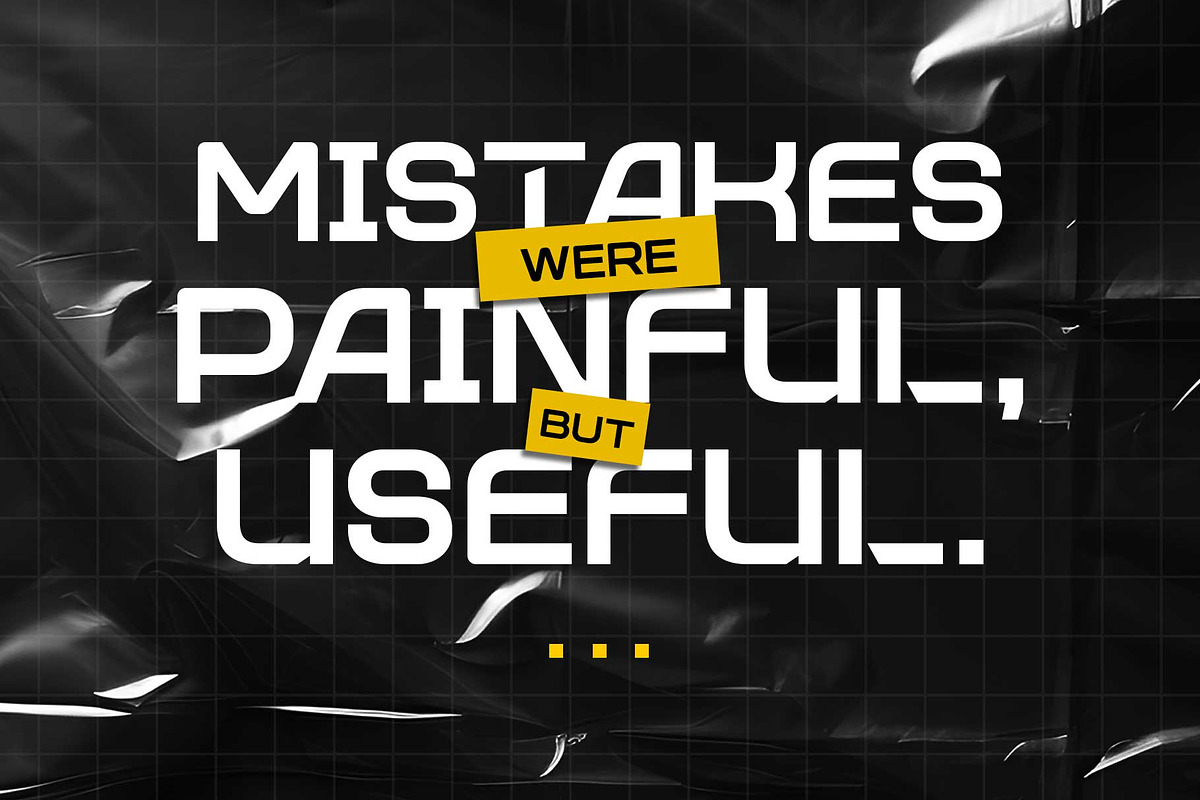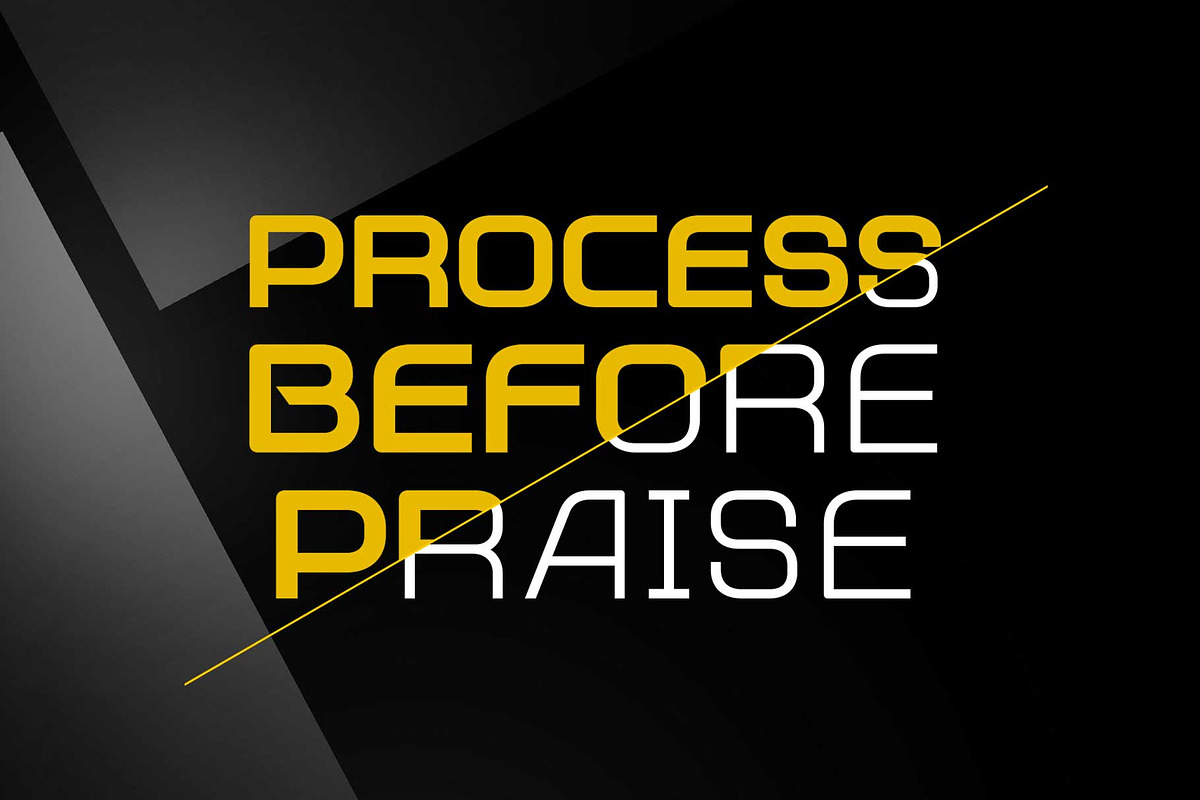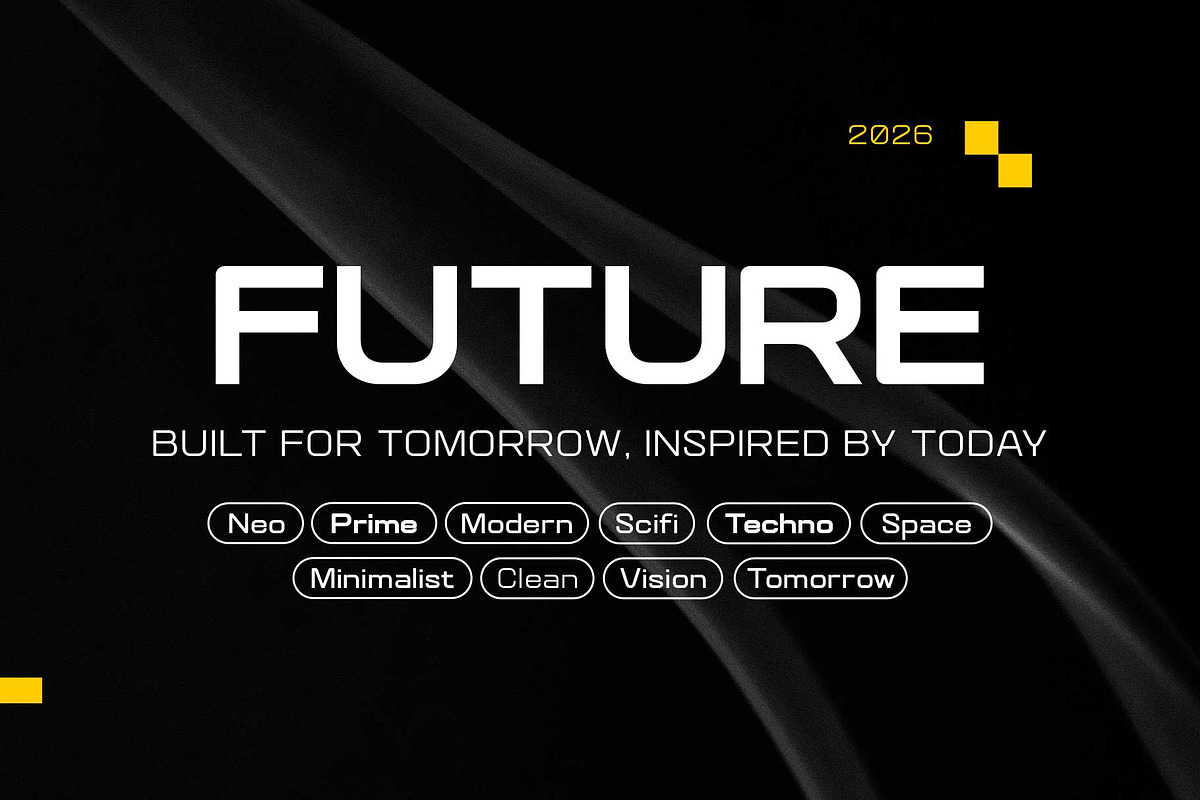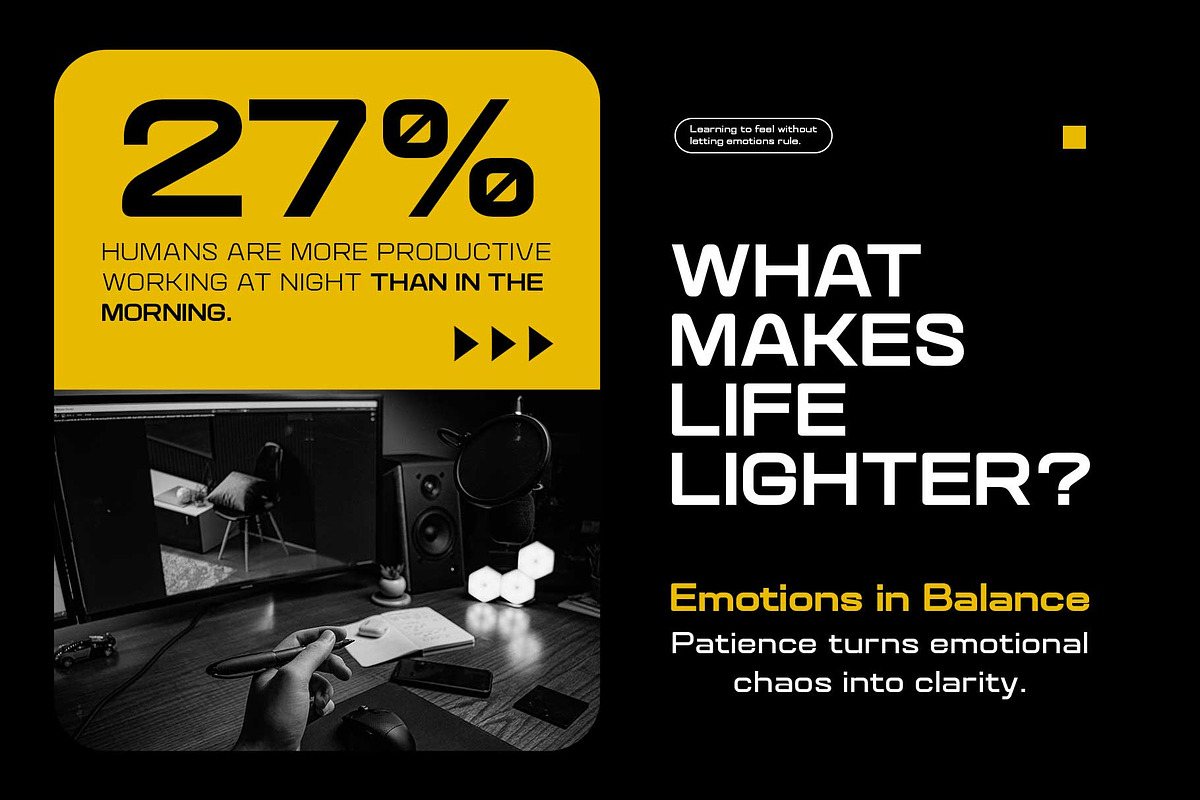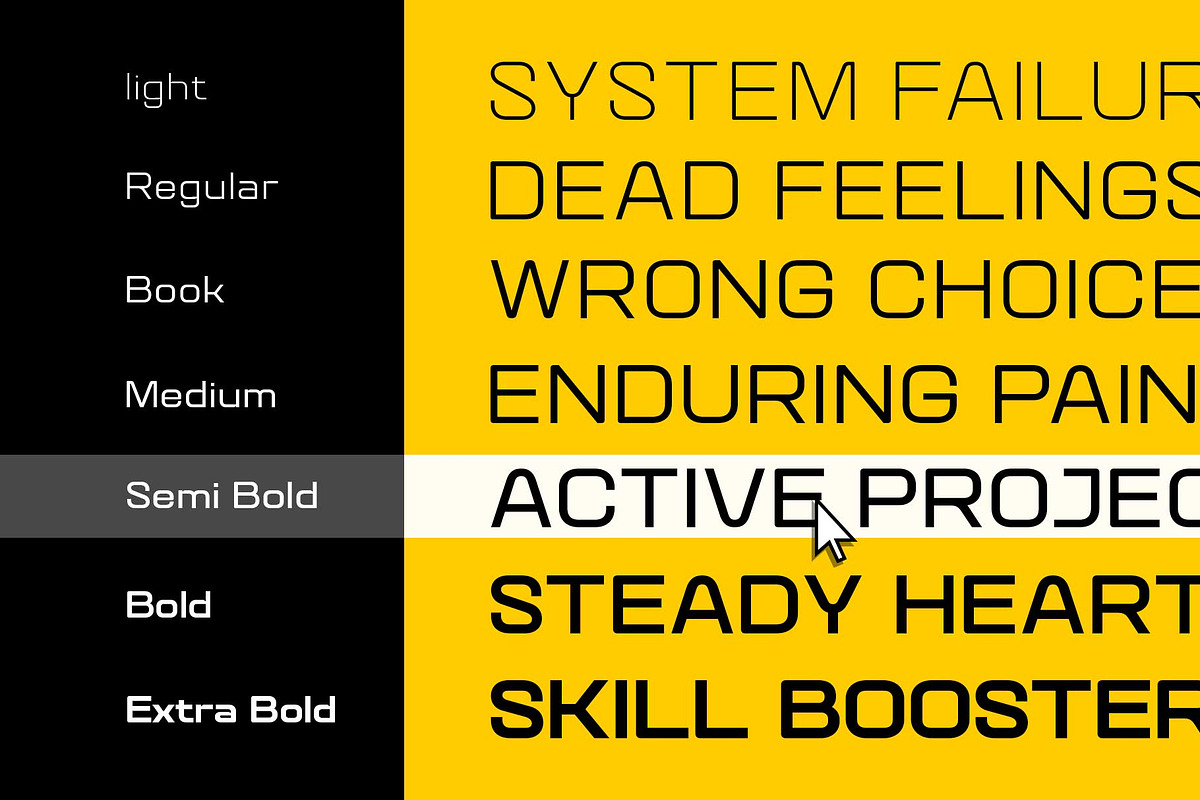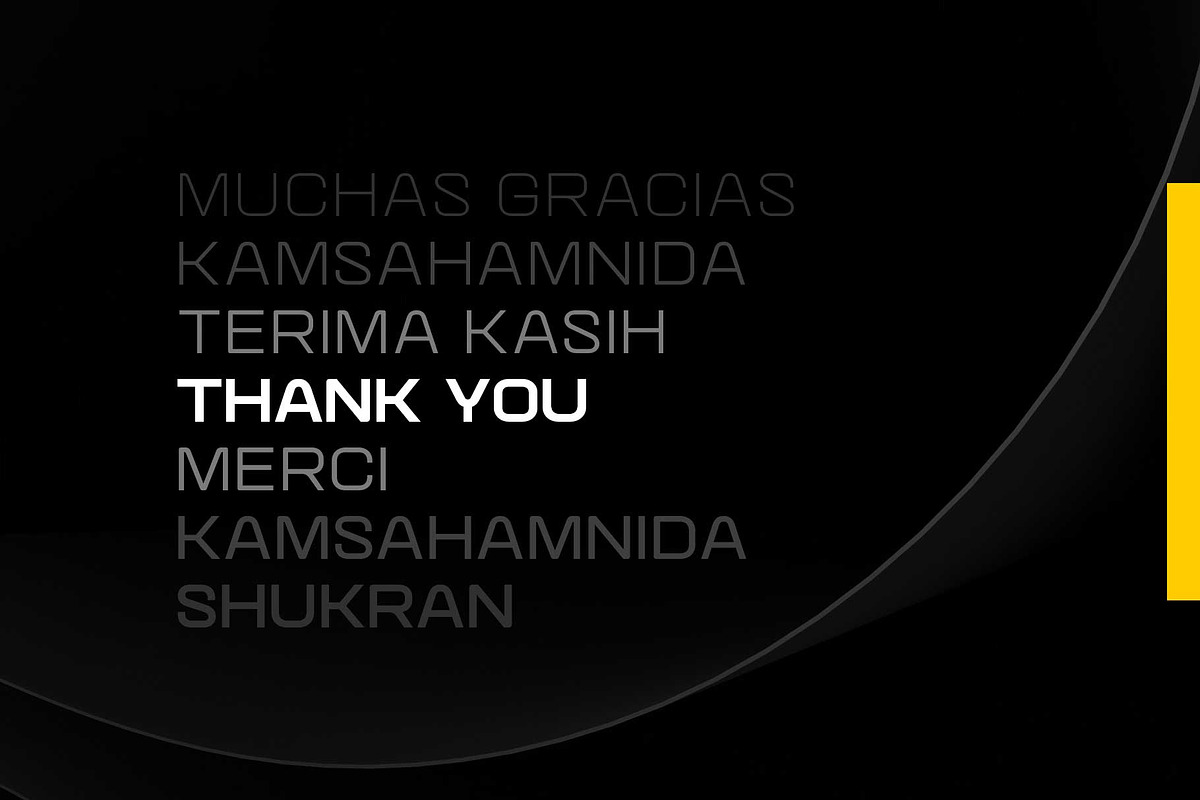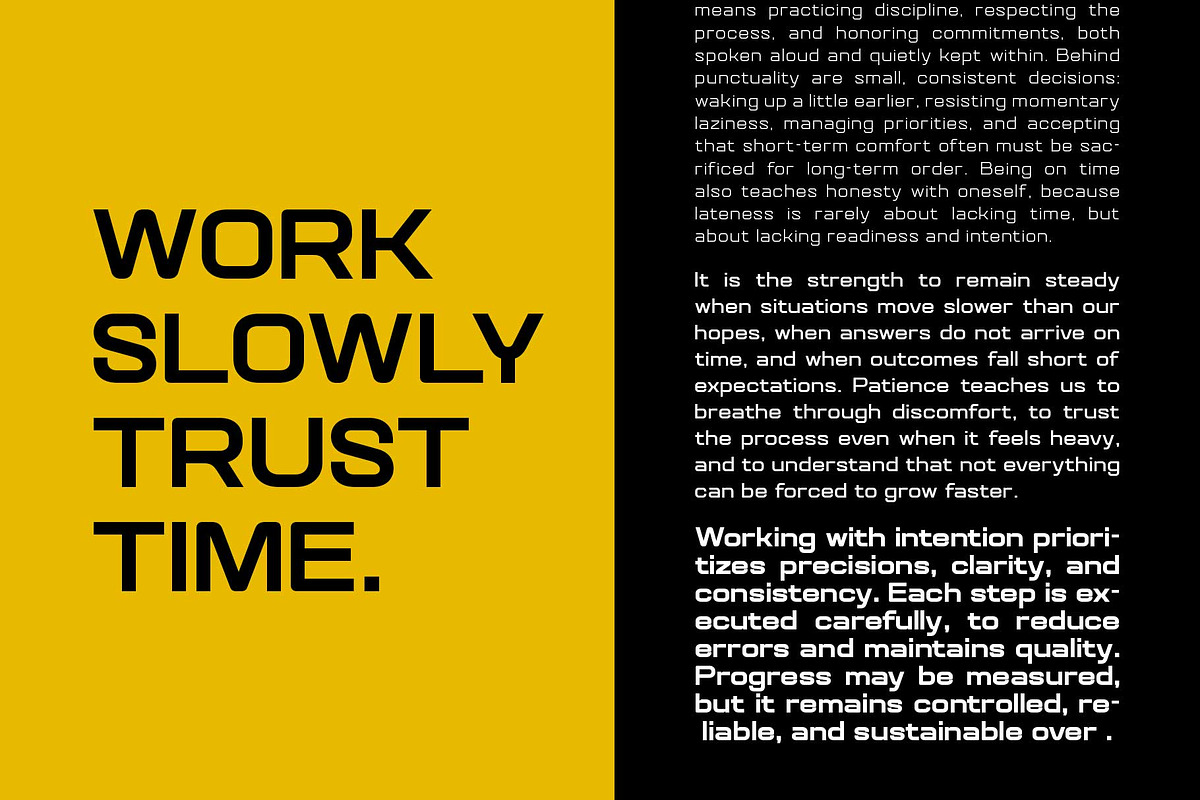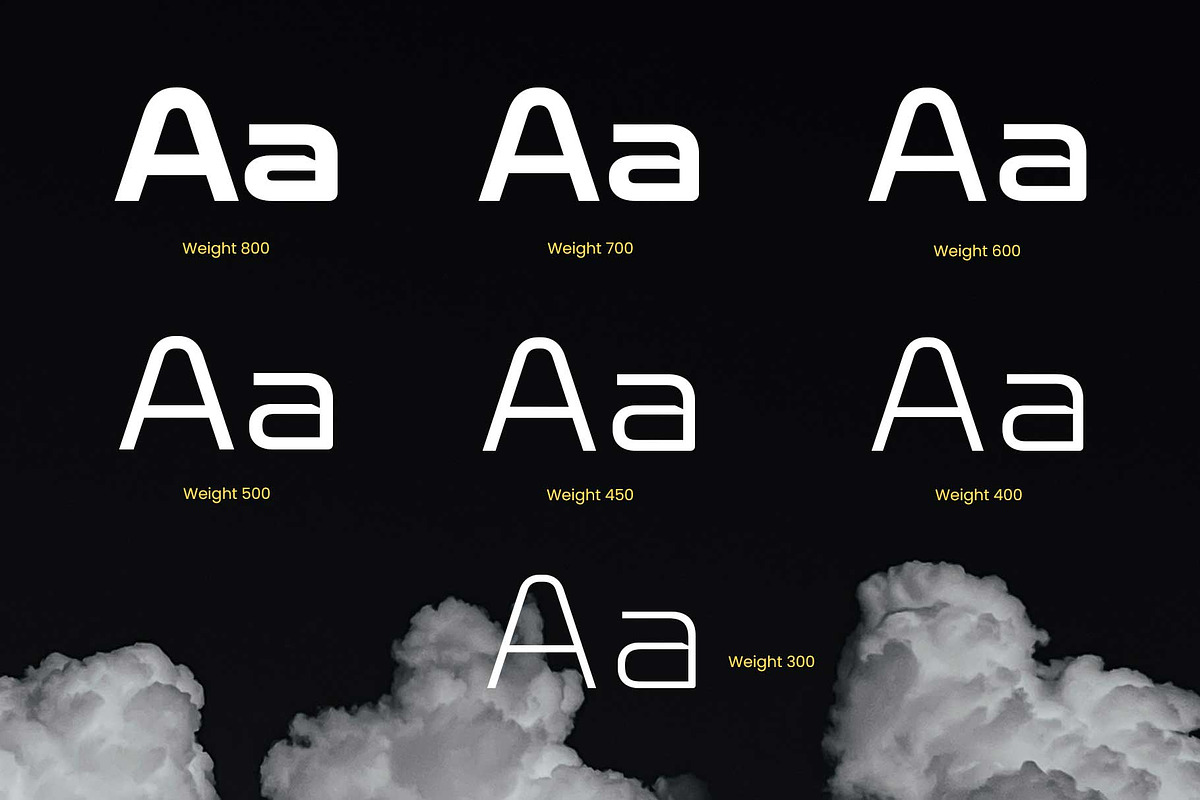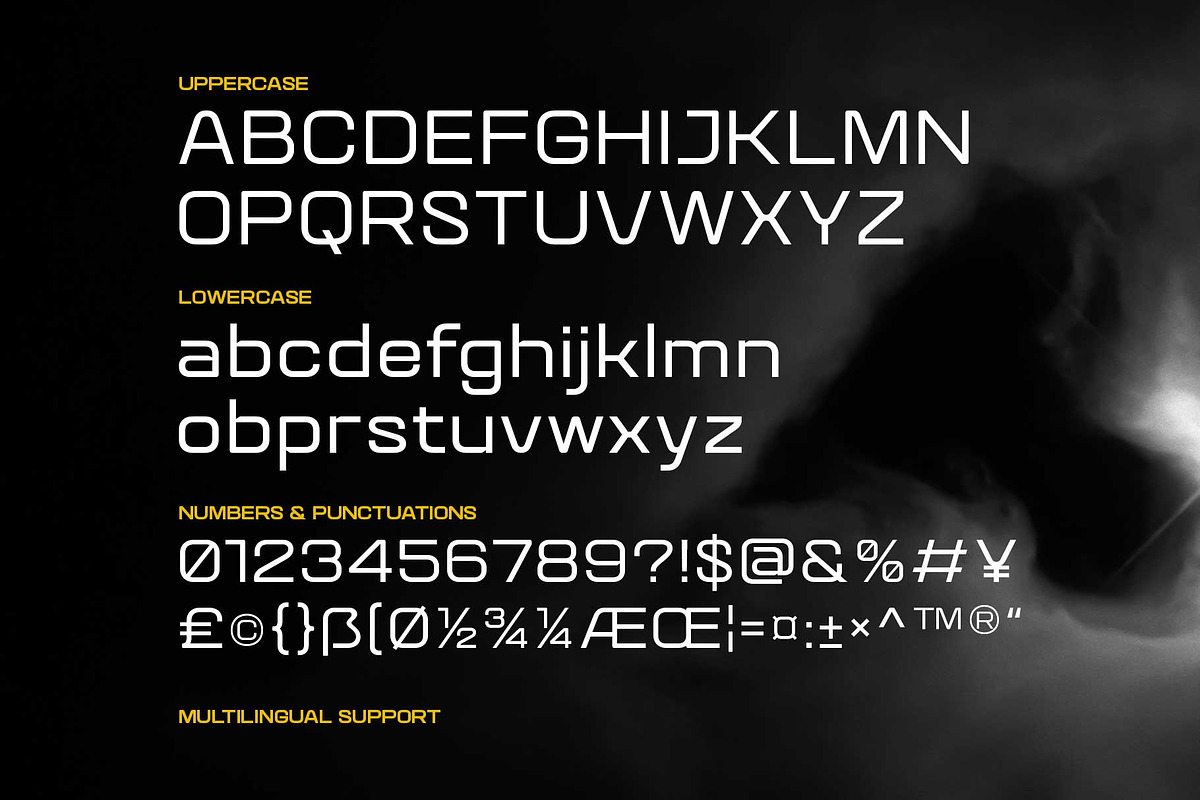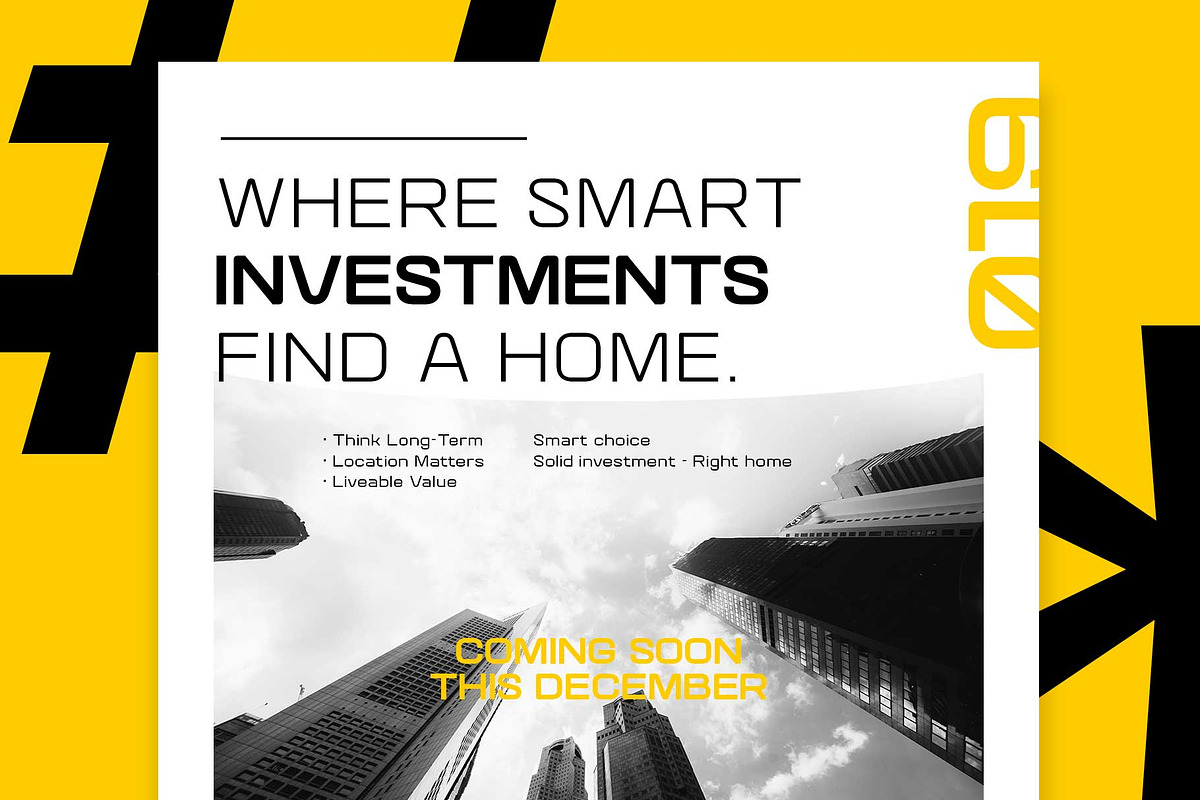
Elegant Futuristic - Quantix
Quantix is a futuristic sans-serif typeface designed with wide and squarish proportions. Available in 7 weights, it elevates techno-futuristic and sporty designs alike. Perfectly suited for logos, branding, signage, product interfaces, small text, editorials, posters, website and etc.
Each Quantix weight delivers its own character. The lightest styles bring elegance and a clean, refined impression. Regular offers formality and confidence for structured layouts, while the bolder weights deliver strong statements and high impact—ideal for headlines. Together, they form a tactical blend of futuristic style and versatility.
With 350+ glyphs and multilingual support, Quantix is built for modern, industrial-driven designs that aim to stand out, scale, and grow.